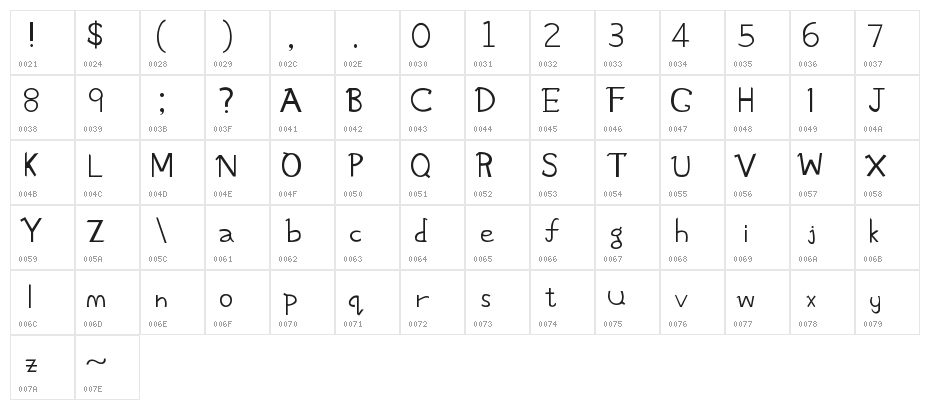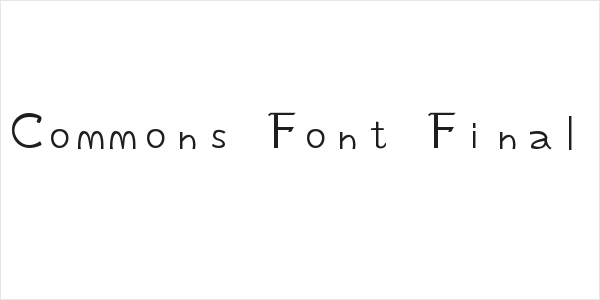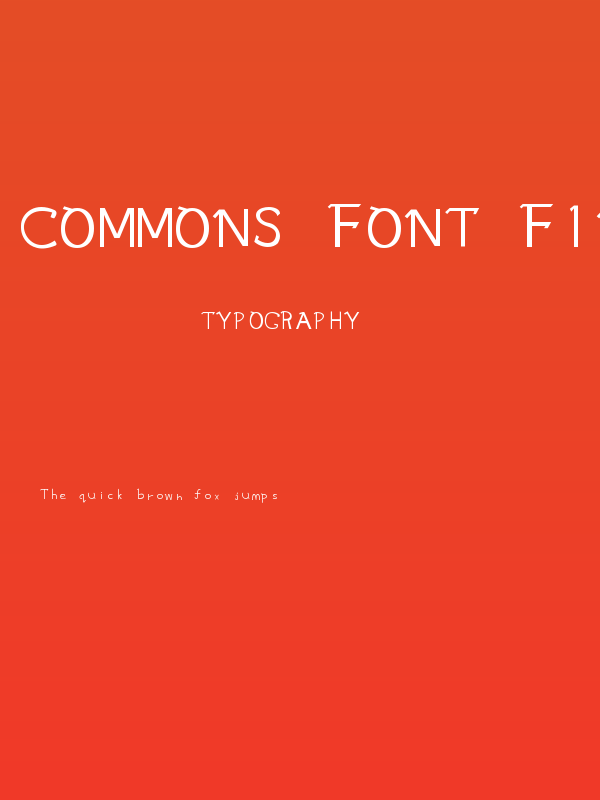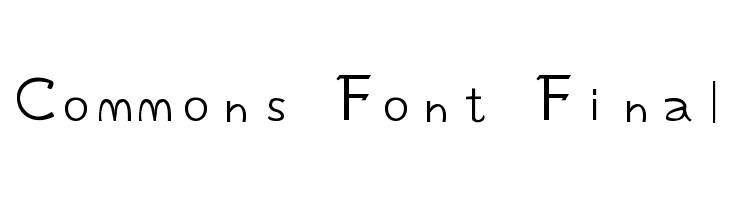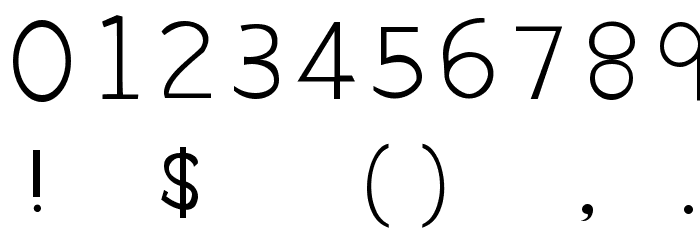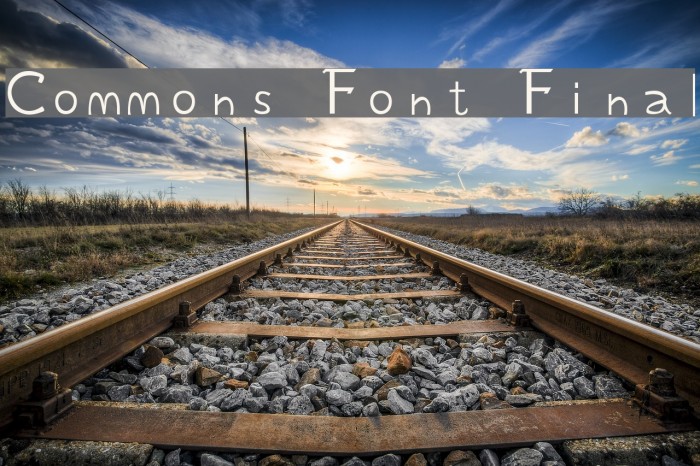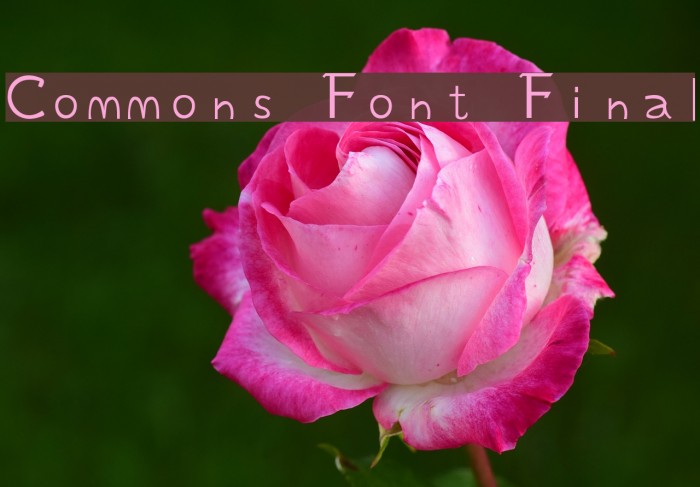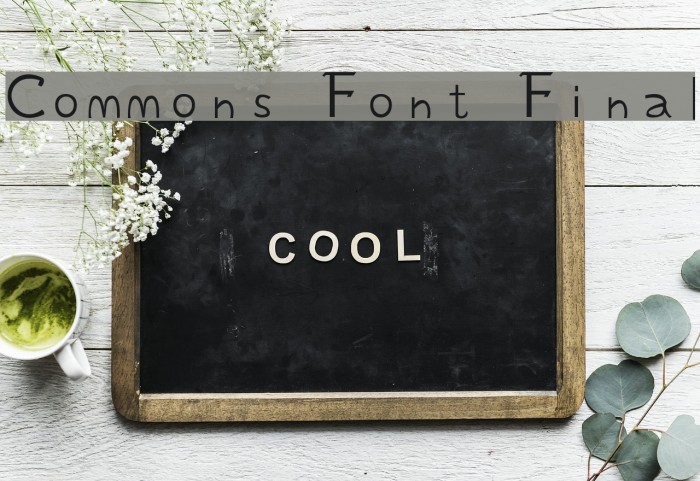
Commons Font Final Font
Commons Font Final Description
This font features a playful and whimsical design, characterized by its unique and slightly irregular strokes. The uppercase letters are bold and distinct, with a slight tilt that adds a dynamic feel. The lowercase letters maintain a consistent style, with some characters like 'g' and 'y' having distinctive loops and tails. The numerals are clear and easy to read, with a consistent height that matches the uppercase letters. Special characters are creatively designed, adding to the overall playful aesthetic. The font's style is suitable for projects that require a fun and informal touch, making it ideal for children's books, casual invitations, or creative branding.
| Proposed Projects | Children's books, casual invitations, creative branding, playful posters. |